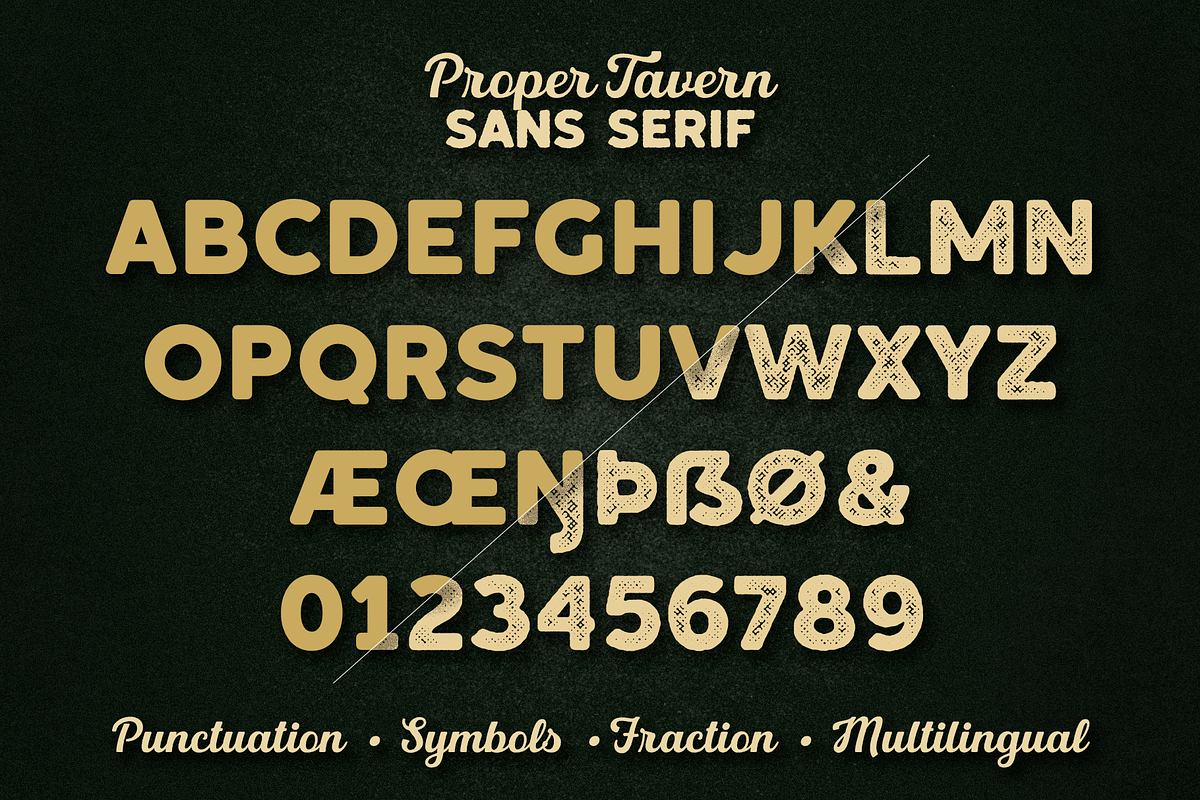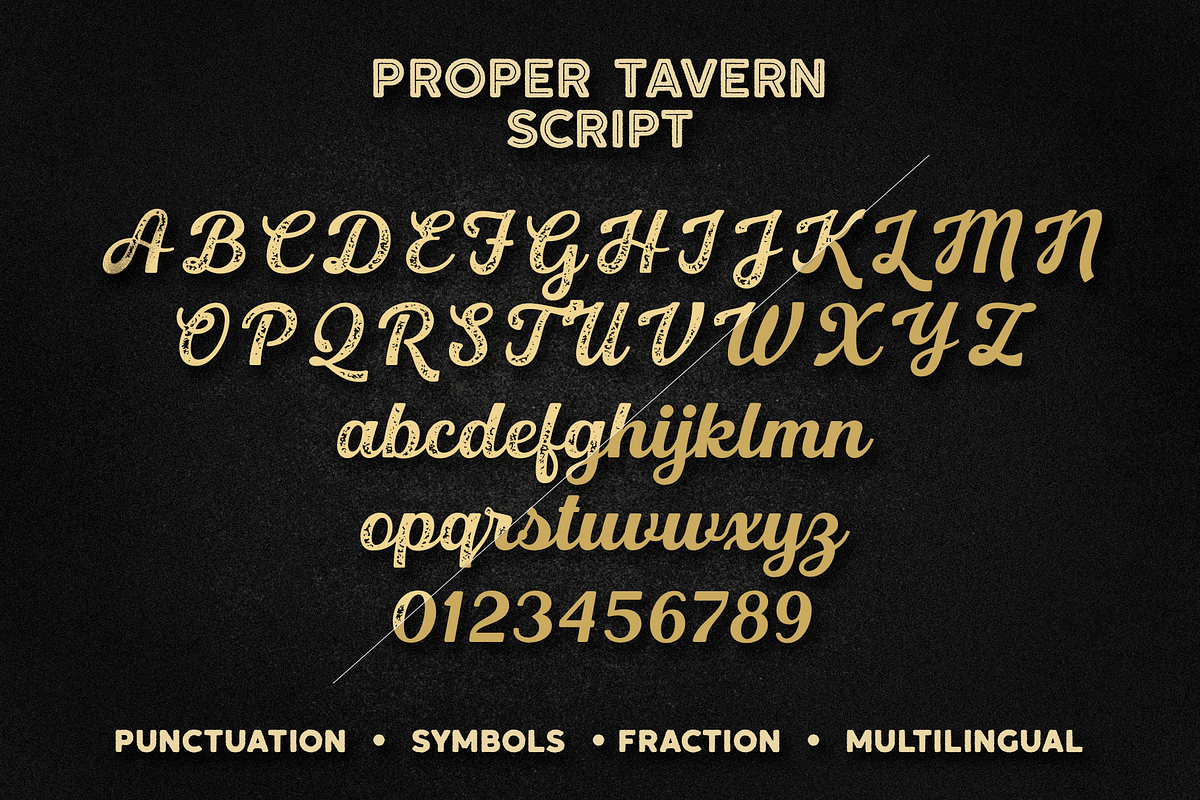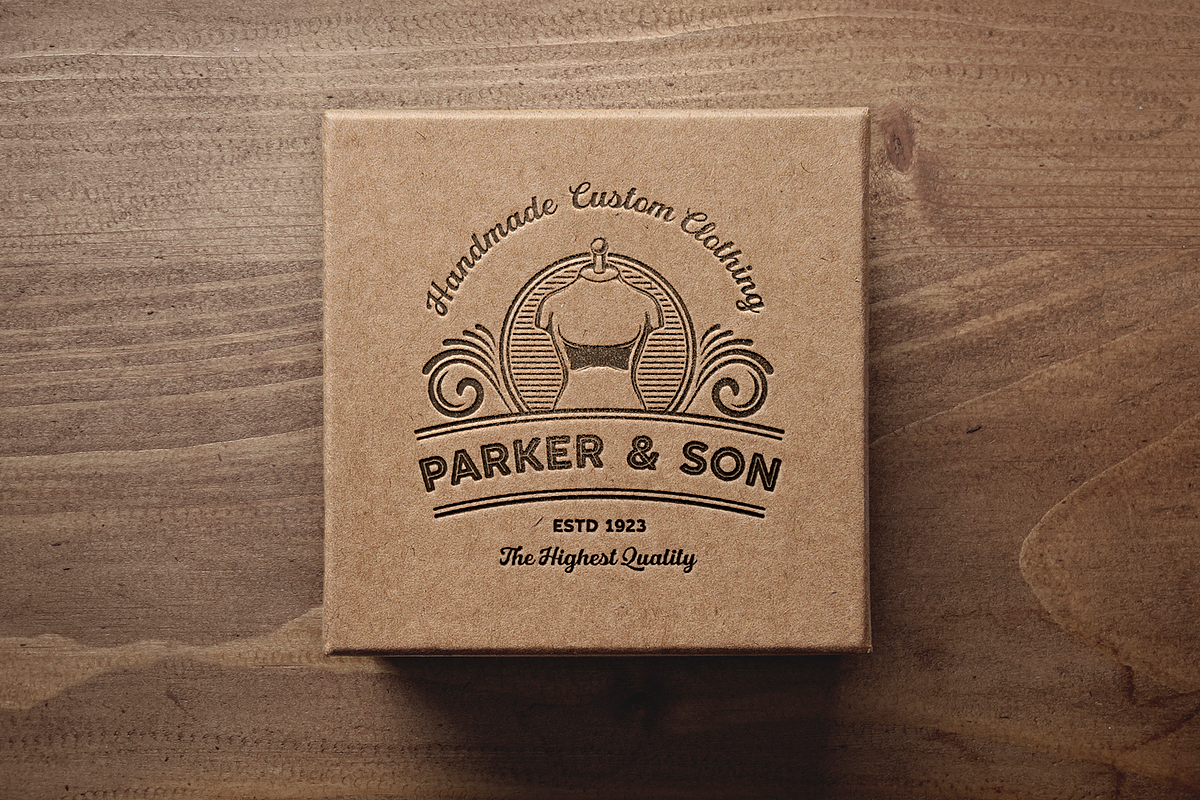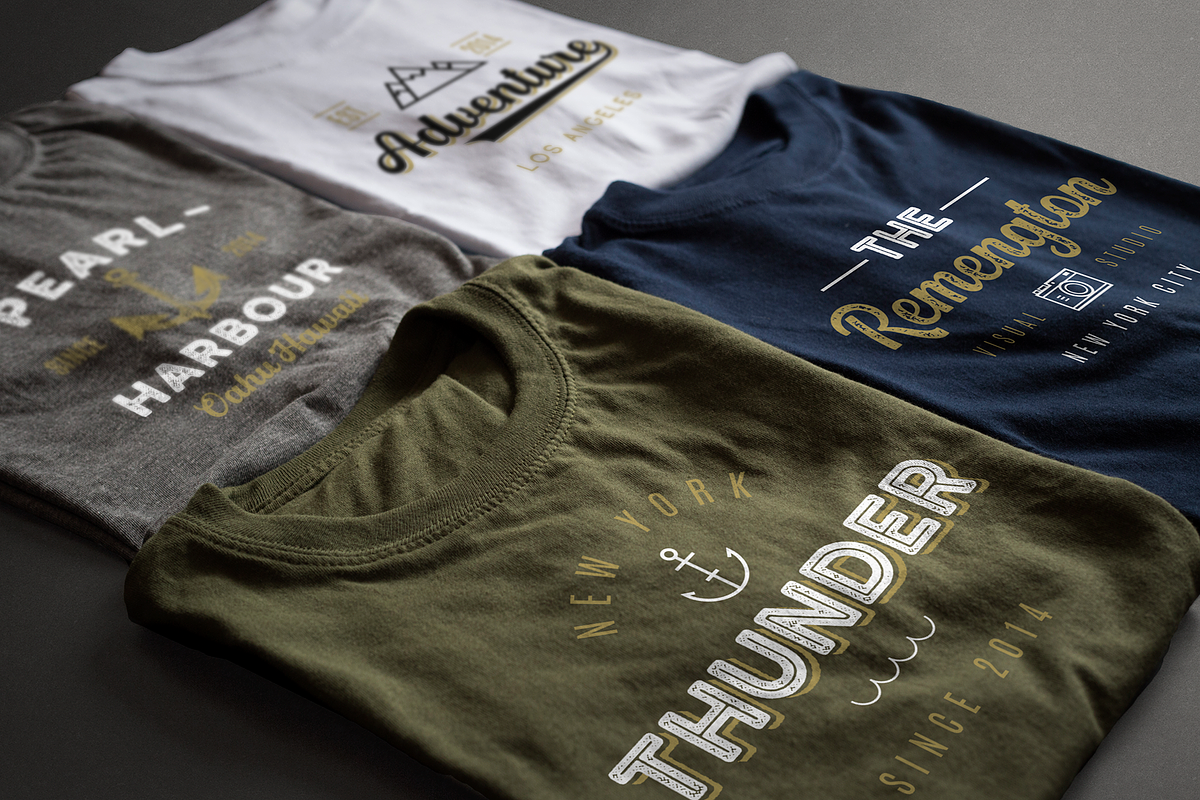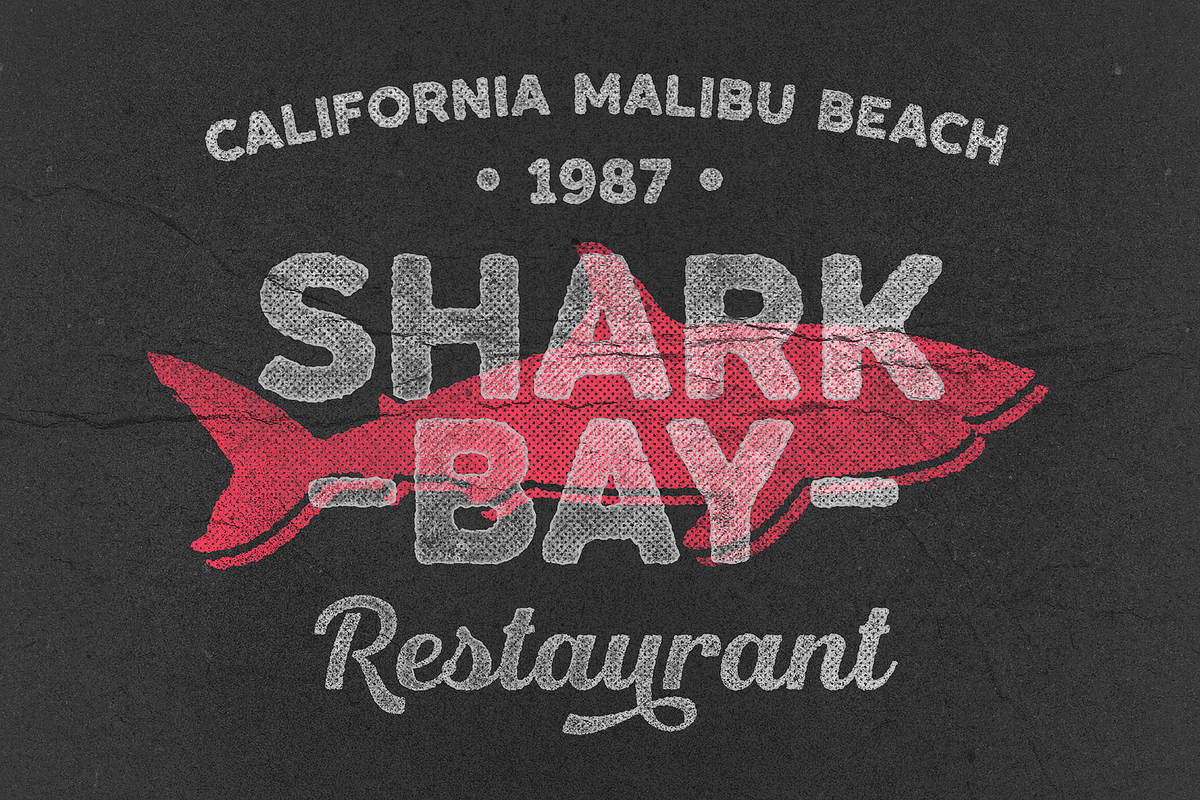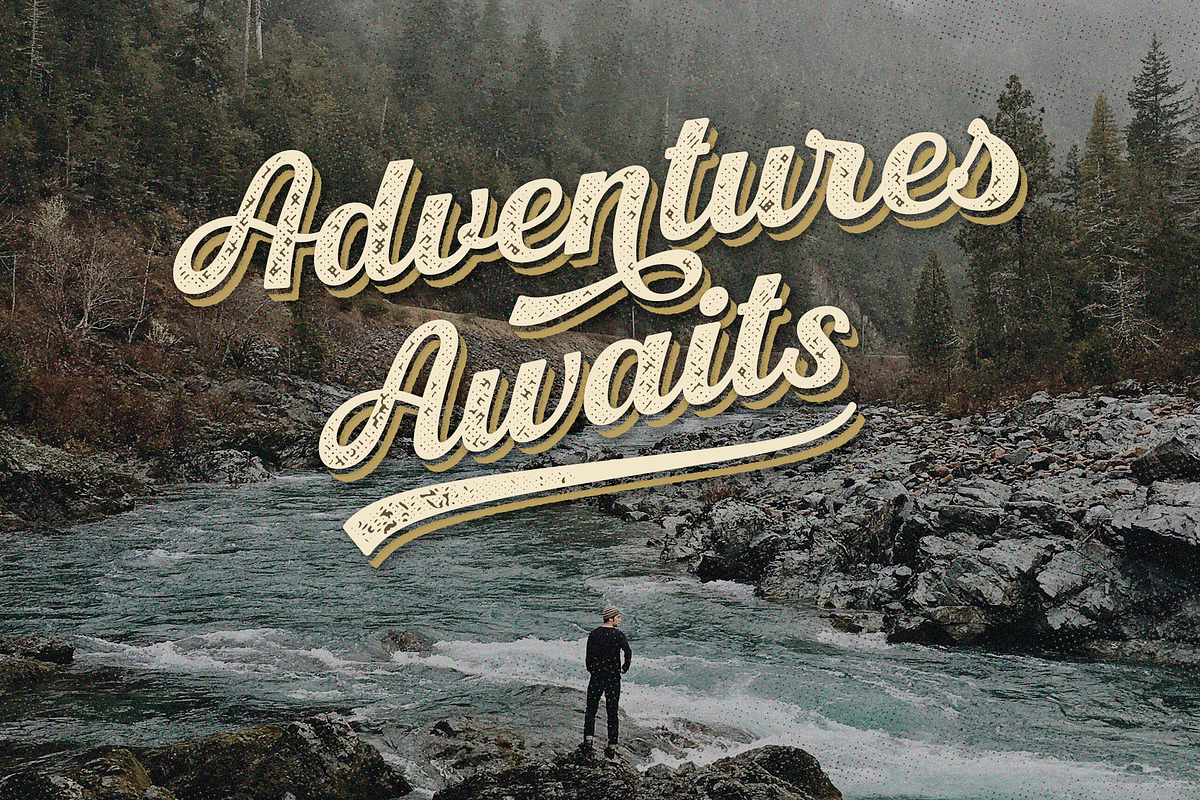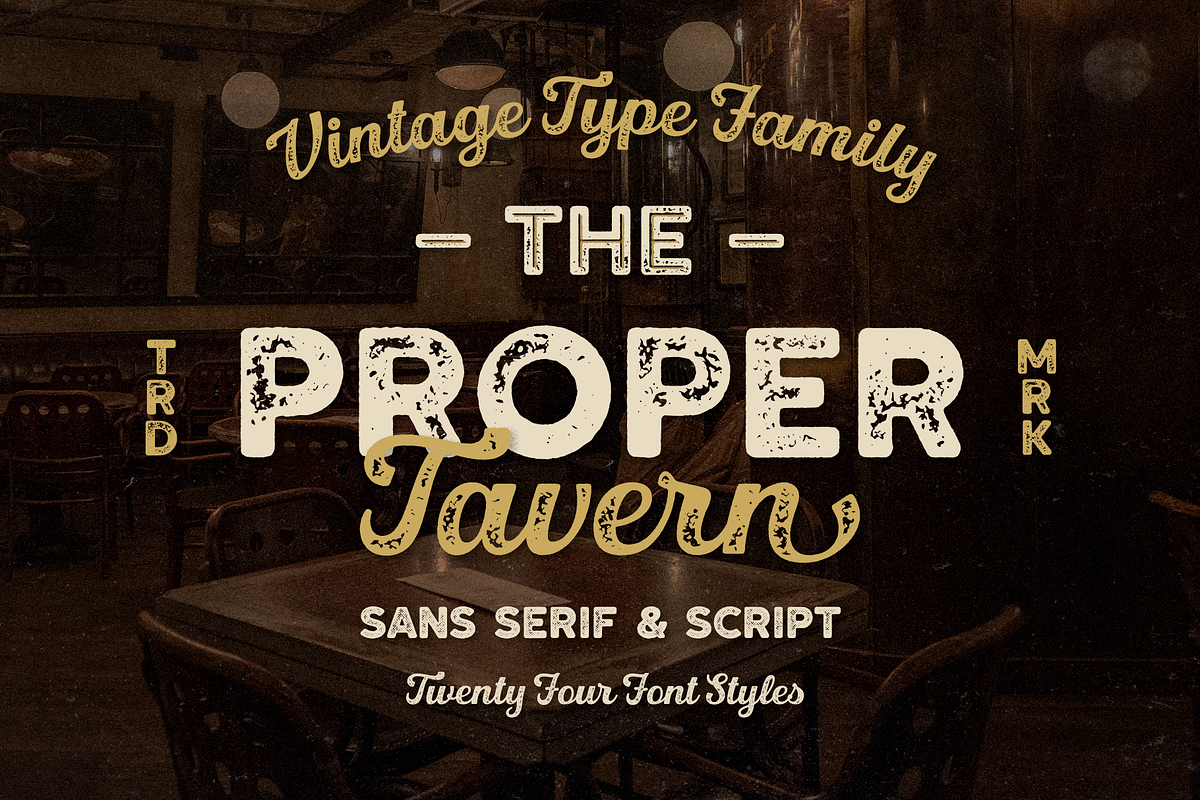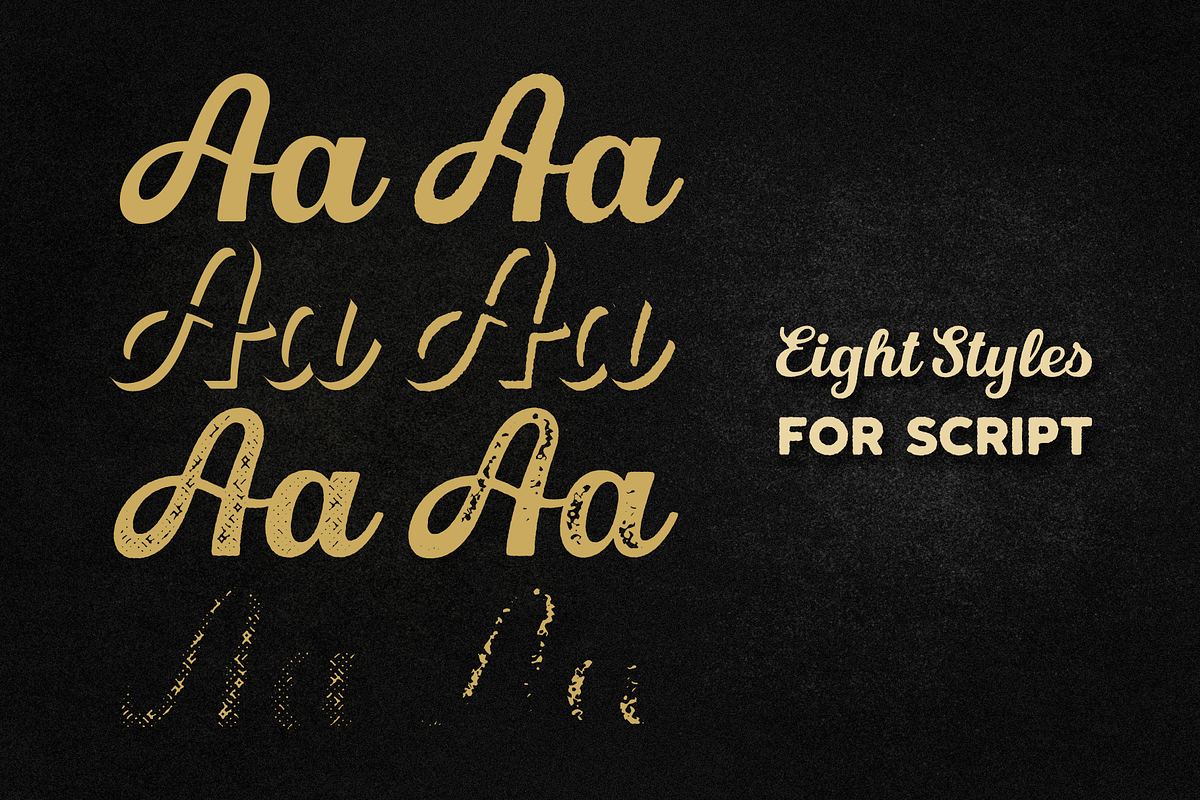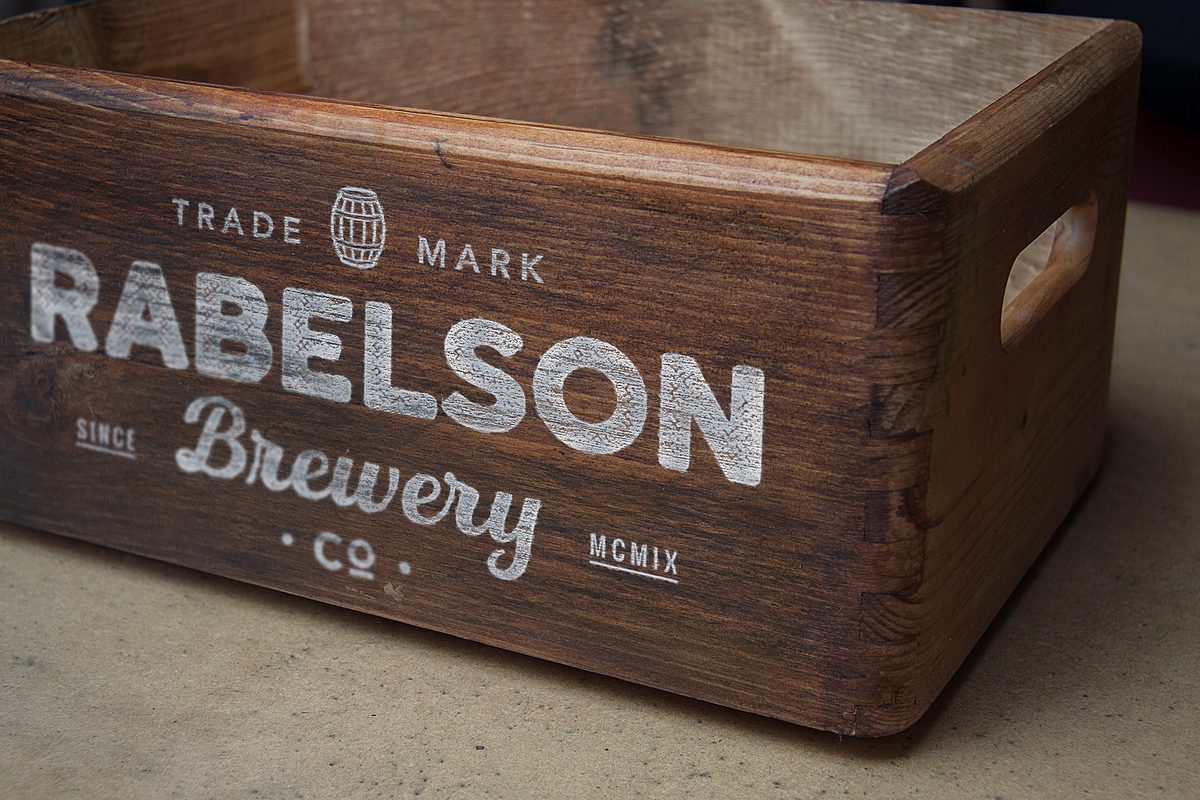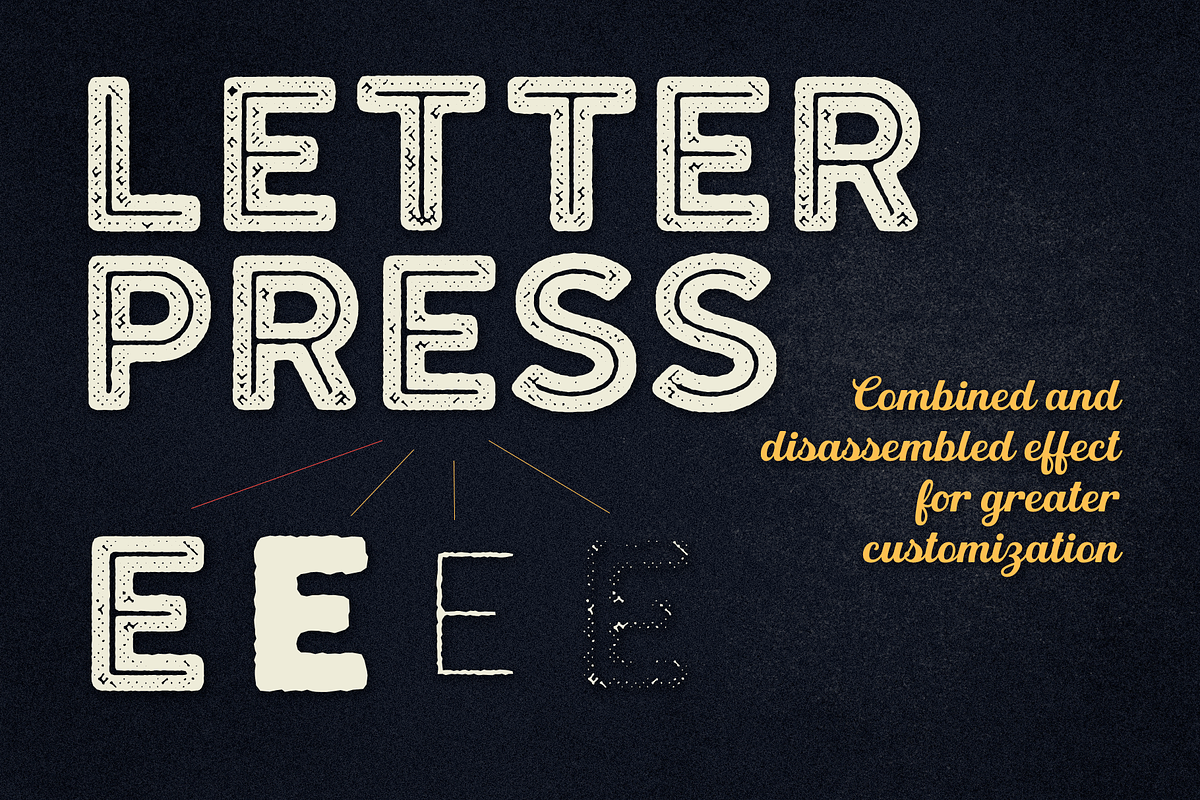
Proper Tavern
Proper Tavern this is a vintage font collection inspired by old signboards and banners. This collection includes 24 font styles - Sans Serif has a regular, rough, inline, inline rough, stamp, halftone, inline stamp, shadow, also cores also have a separate style for greater customization. Script has a regular, rough, stamp, halftone style. The script font includes alternatives for Uppercase and Lowercase, as well as swashes.
Following international symbols support: ÀÁÂÃÄÅĄÇĆÈÉÊËĘÌÍÎÏÐÑŃŁÒÓÔÕÖØÙÚÛÜŚŠŸÝŹŻŽßàáâãäåçèéêëìíîïðñòóôõöøùúûüýÿąćęłńśšźżž
Full Capital alphabet A-Z for Sans Serif
Full alphabet Uppercase and Lowercase A-z for Script
Numbers, fractions for Sans Serif and Script
Punctuation and symbols for Sans Serif and Script
Alternates for Uppercase and Lowercase for Script
Swashes, ligatures for Script
Multilingual support for Sans Serif and Script